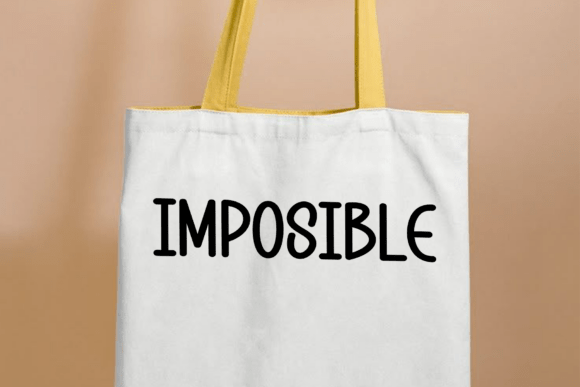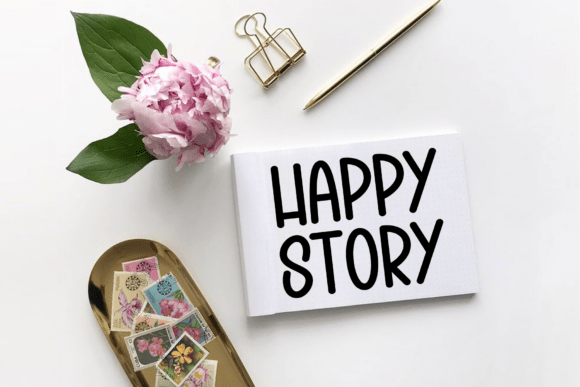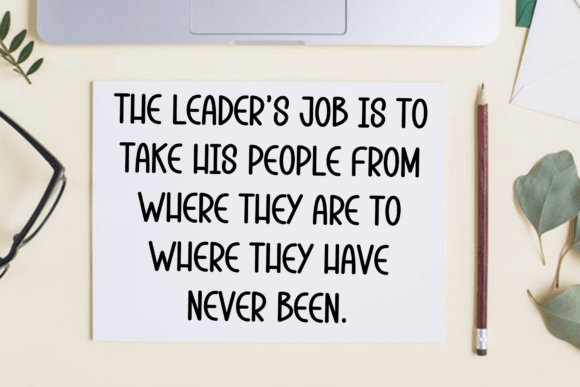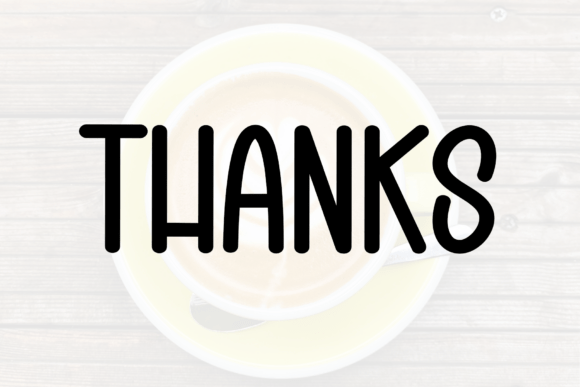
Introducing Capucino Font: The Perfect Holiday Companion for Designers and Crafters
Are you looking for a font that embodies the joy and warmth of the holiday season? Look no further than Capucino Font, a playful and cheerful handwritten sans-serif font that’s sure to bring a smile to everyone’s face. With its rounded strokes and casual, friendly style, Capucino is the perfect choice for Christmas cards, festive invitations, kids’ projects, and seasonal branding.
The Charm of Capucino Font
Capucino Font is more than just a font – it’s an experience. Its whimsical and inviting style is designed to capture the magic of the holiday season, making it ideal for designers and crafters who want to add a touch of personality to their projects. Whether you’re designing for Santa’s workshop or a cozy holiday ad, Capucino brings a lighthearted and magical touch to your typography.
Capucino Font is specifically designed with holiday projects in mind. Its playful and cheerful style makes it perfect for:
- Christmas cards: Add a personal touch to your holiday cards with Capucino’s friendly and approachable style.
- Festive invitations: Invite friends and family to join in the holiday fun with Capucino’s whimsical and inviting typography.
- Kids’ projects: Bring a touch of magic to kids’ projects, such as holiday crafts and activities, with Capucino’s playful and cheerful style.
- Seasonal branding: Add a touch of personality to your holiday branding with Capucino’s unique and eye-catching style.
What Makes Capucino Font Special?
So, what sets Capucino Font apart from other fonts? Here are just a few things that make it special:
- Handwritten charm: Capucino’s handwritten style gives it a personal and approachable feel that’s perfect for holiday projects.
- Rounded strokes: The font’s rounded strokes add a touch of whimsy and playfulness to your typography.
- Casual and friendly style: Capucino’s casual and friendly style makes it perfect for projects that require a personal touch.
Tips for Using Capucino Font
Here are a few tips for getting the most out of Capucino Font:
- Use it with holiday colors: Pair Capucino with traditional holiday colors like red, green, and gold to create a festive and cohesive look.
- Experiment with sizes: Try using Capucino in different sizes to create visual interest and add emphasis to your typography.
- Combine it with other fonts: Pair Capucino with other fonts to create a unique and eye-catching typography combination.
Capucino Font is the perfect companion for designers and crafters who want to add a touch of joy and warmth to their holiday projects. With its playful and cheerful style, rounded strokes, and casual, friendly style, Capucino is sure to bring a smile to everyone’s face. Whether you’re designing for Santa’s workshop or a cozy holiday ad, Capucino Font is the perfect choice for spreading holiday cheer.